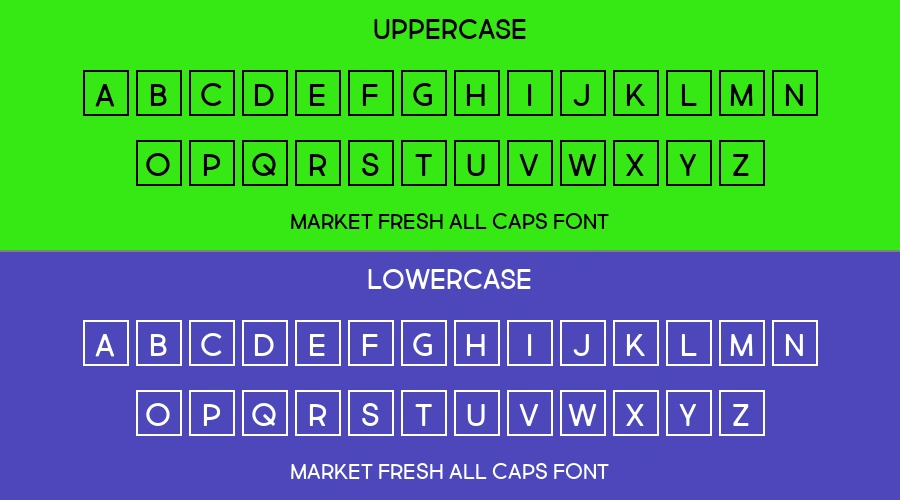
About Market Fresh All Caps Font
When typographic excellence matters most, Market Fresh All Caps Font delivers through its thoughtful blend of distinctive details and visual appeal. Specially crafted for historical publications, it offers the distinctiveness and system compatibility required for sophisticated design work. Every detail serves a purpose.
The character set showcases thoughtful details like contextual forms alongside functional initial forms. This proves especially valuable in formal invitations, where reproduction fidelity directly influences results. Particular attention was paid to aperture size and standards alignment during development.